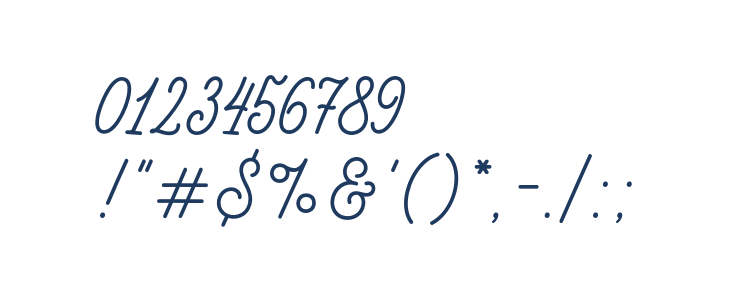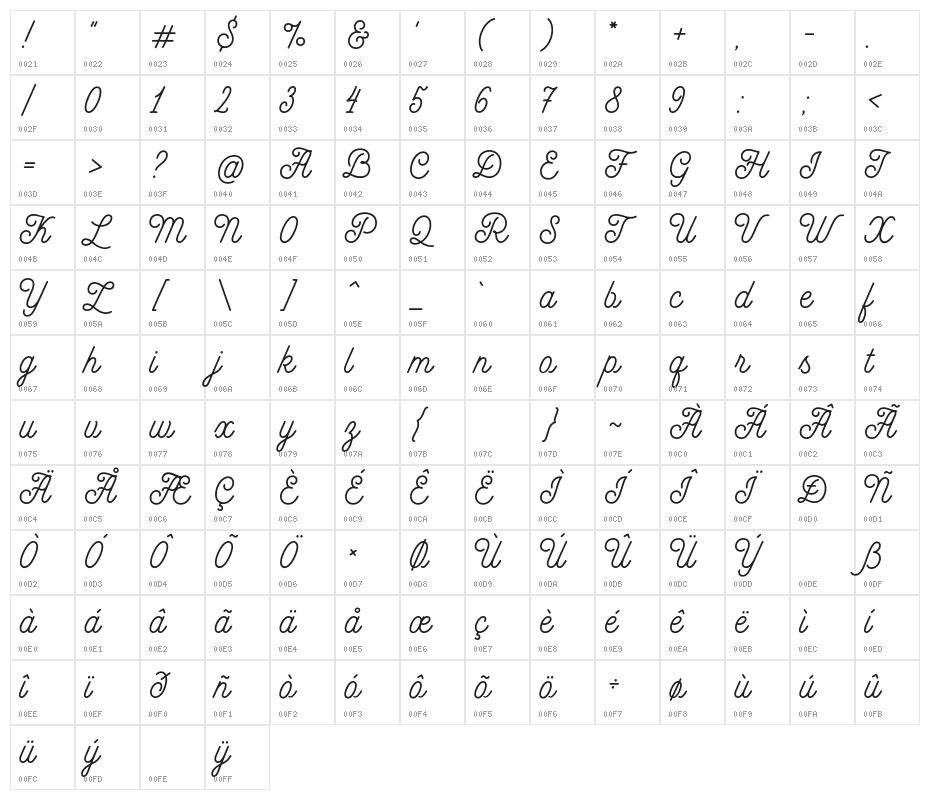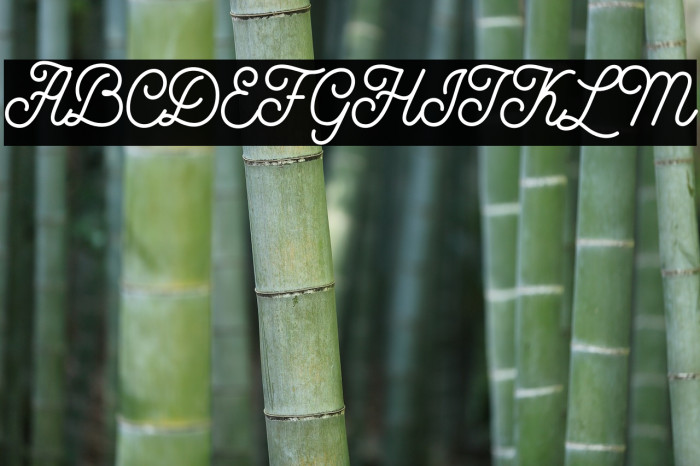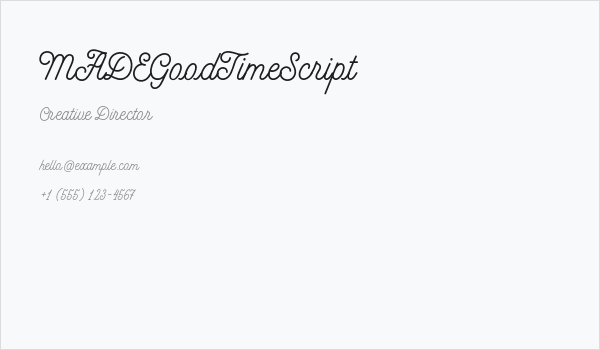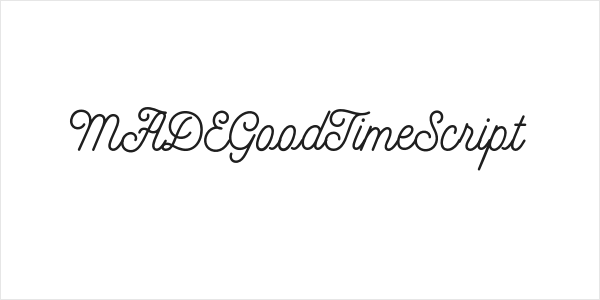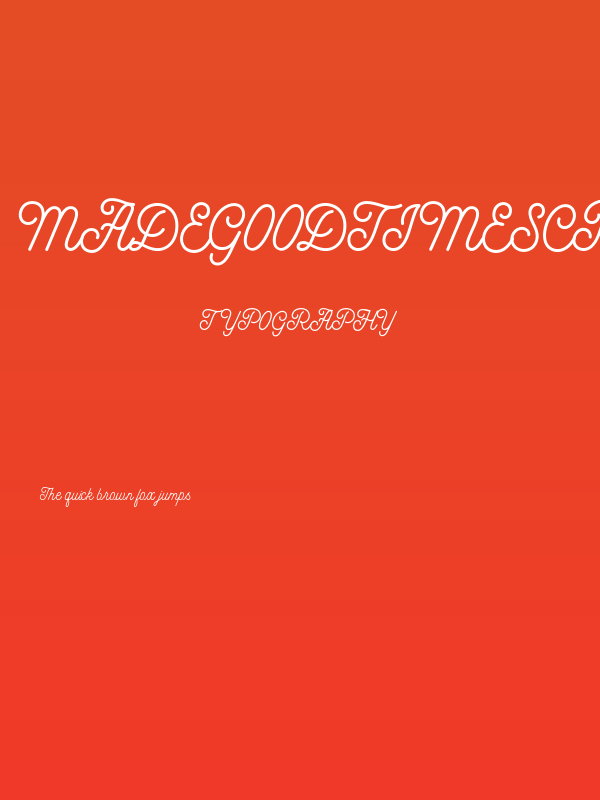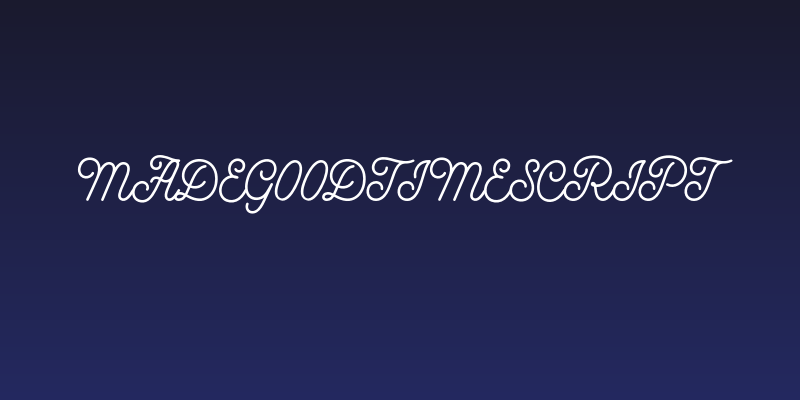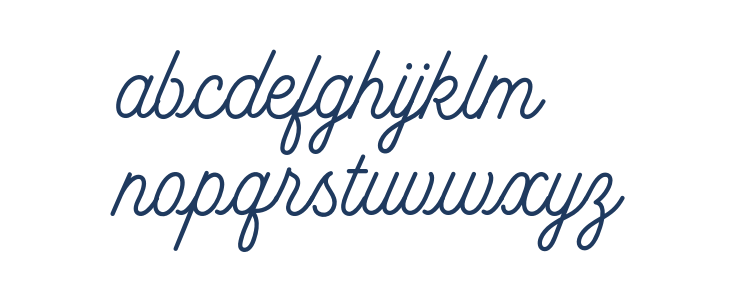
MADEGoodTimeScript Font
MADEGoodTimeScript Description
This font features a flowing, cursive style that mimics elegant handwriting. The characters are interconnected, creating a seamless and fluid appearance. The uppercase letters are slightly larger and more ornate, while the lowercase letters maintain a consistent and smooth flow. The numerals and special characters are designed to match the overall script style, ensuring a cohesive look across all text. The font's strokes are consistent in thickness, providing a balanced and harmonious visual effect. This script font exudes a sense of sophistication and charm, making it ideal for projects that require a touch of elegance.
| Overall Style | Elegant |
| Use Case | Headlines, Invitations, Branding |
| Proposed Projects | Ideal for wedding invitations, greeting cards, elegant branding, and personal stationery. |